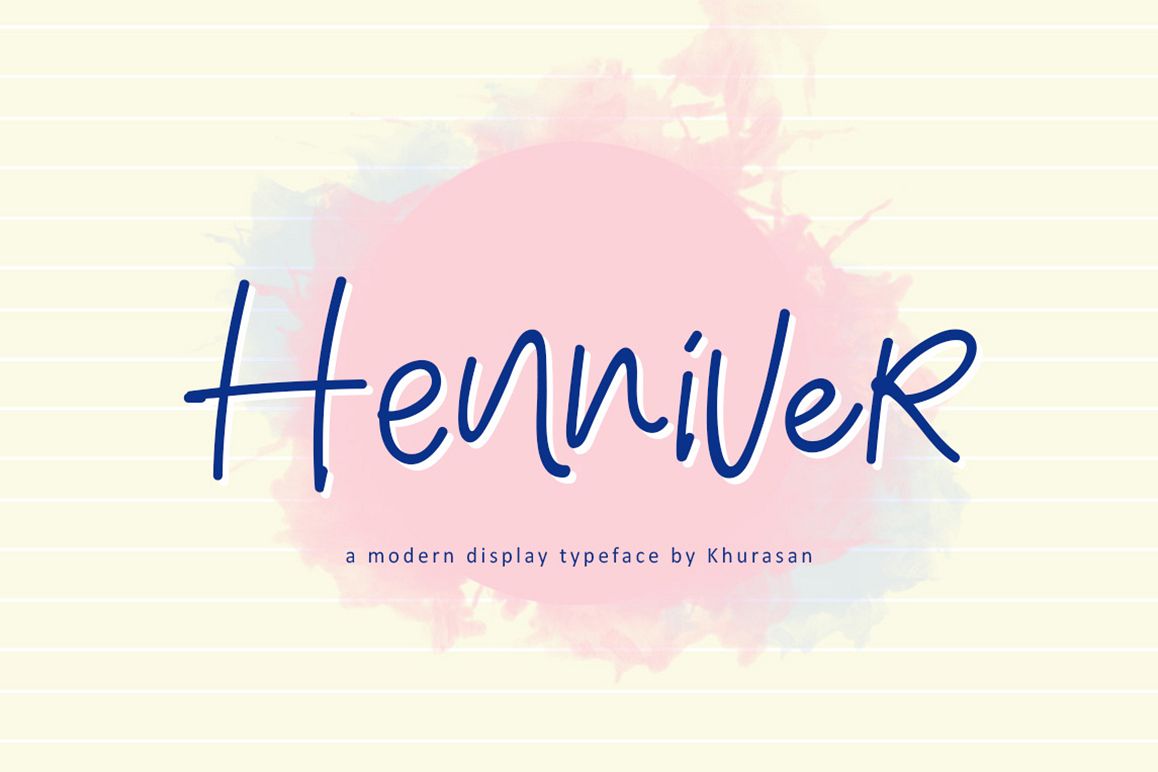
Henniver font a fun display typeface with cheerful theme for your fun project. Henniver font support multilanguage. Henniver font suitable for logo, branding, greeting card, poster and any design that you create.